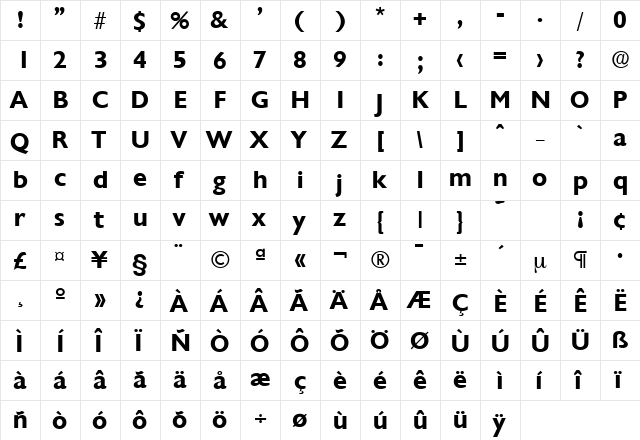
Chantilly-Serial Bold
Design Context for Chantilly-Serial Typeface
Chantilly-Serial takes a measured approach to typography — its balanced proportions and neutral character make it a reliable workhorse for both digital and print work. The heavy weight commands attention and anchors typographic hierarchies.